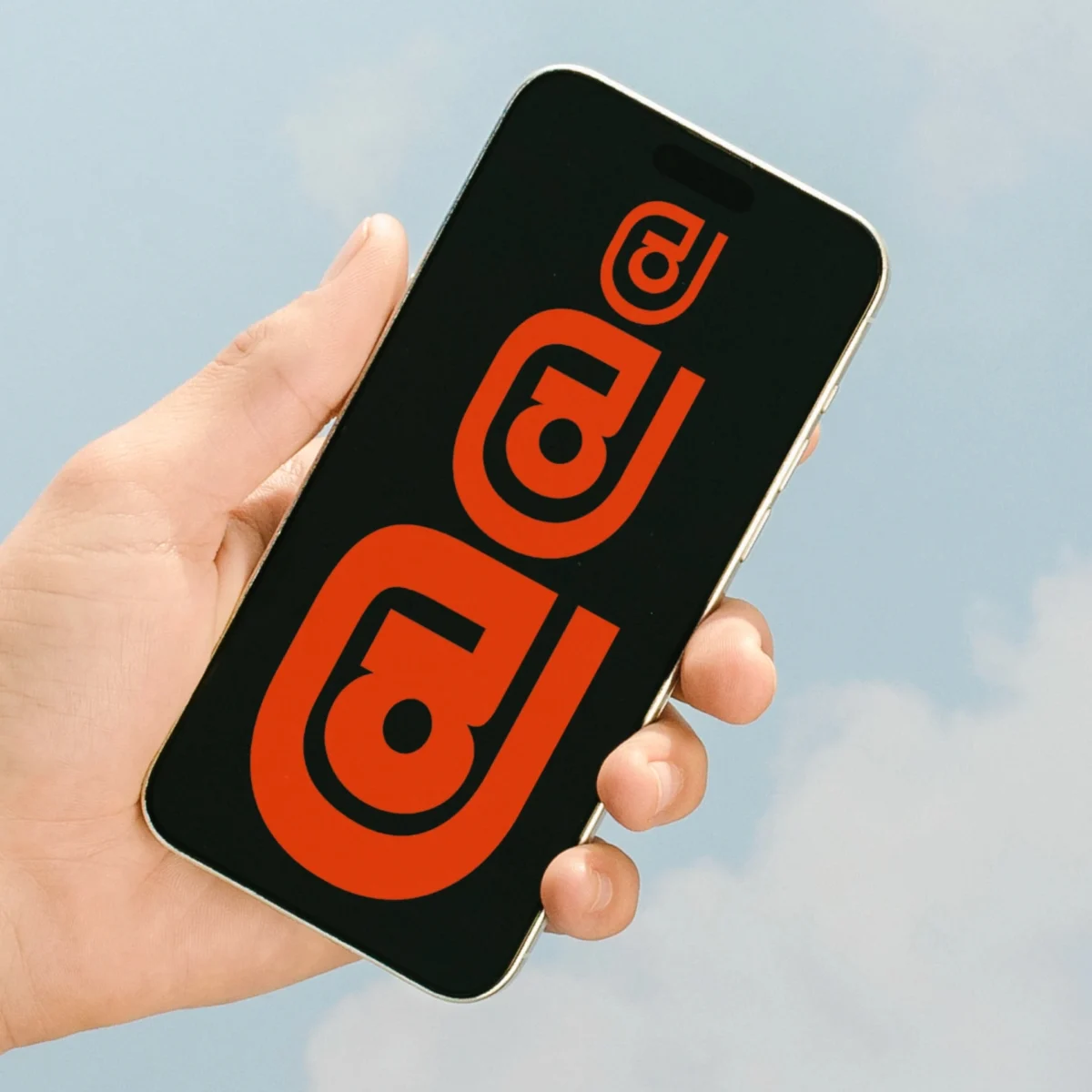
Arha Typeface by Bolditalic Studio: A Constructivist Revival Bridging Global Scripts with Architectural Precision
Bolditalic Studio has announced the release of Arha typeface 3.0, a significant update to its geometric sans serif that seamlessly merges the robust character of early 20th-century grotesque letterforms with the structural logic of constructivist architecture. The latest iteration, unveiled in January 2026, dramatically expands its linguistic support to include Greek, Georgian, Armenian, and an enriched Cyrillic alphabet featuring Abkhazian characters, positioning Arha as a uniquely versatile tool for global communication. This ambitious project, developed in collaboration with designers Kirill Turygin and Dmitry Goloub, transcends mere stylistic imitation, instead deconstructing and rebuilding type through an architectural lens to achieve a typeface that is both historically resonant and forward-looking.
The Genesis of Arha: A Dialogue Between History and Modernity
The initial premise for Arha was deceptively straightforward yet profound: to reinterpret the foundational elements of grotesque typefaces, which emerged in the 19th century as a stark departure from seriffed and humanist forms, through the rigorous, functionalist principles of constructivist architecture. Grotesques, characterized by their uniform stroke widths and lack of serifs, were revolutionary in their time, signaling a move towards industrial efficiency and direct communication. However, Arha does not merely revive; it re-engineers. Bolditalic Studio’s approach involved dissecting the archaic logic embedded within these historical forms, stripping away decorative elements to reveal the underlying structural integrity. This process aligns with the constructivist ethos, where form is dictated by function and materials are used honestly, often resulting in stark, geometric compositions.
Constructivism, an art and architectural philosophy that flourished in Russia after the 1917 revolution, championed abstract forms, industrial materials, and a commitment to social utility. Architects like Vladimir Tatlin, Aleksandr Rodchenko, and Konstantin Melnikov sought to create structures that were dynamic, rational, and reflective of a new, industrialized society. Their designs often featured bold geometric shapes, intersecting planes, and a deliberate use of negative space to define mass and volume. Arha typeface translates these architectural principles into typography, where each glyph is conceived as a self-contained structure, its apertures and stroke relationships meticulously calibrated for legibility and visual strength, even at a distance. This is particularly evident in how the typeface uses geometric mass and negative space to define its character, ensuring that its historical weight feels structural rather than superficial.
Arha Typeface: Geometric Sans with Constructivist Roots
A Chronology of Development and Expansion
The journey of Arha typeface from concept to its 3.0 release in January 2026 represents a methodical evolution guided by a clear design philosophy. While the exact initial development timeline is not publicly detailed, the core concept likely originated years prior, involving extensive research into both historical type specimens and constructivist architectural blueprints. The collaboration with Kirill Turygin and Dmitry Goloub points to a multi-faceted design process, leveraging specialized expertise in type design and possibly specific script knowledge.
The initial release of Arha focused on its Latin character set, establishing the unique fusion of grotesque and constructivist principles. This foundational stage was crucial for defining the typeface’s distinctive aesthetic and structural rules. Subsequent updates likely refined these Latin forms, optimized kerning, and expanded OpenType features. The 3.0 update, however, marks a pivotal moment, signifying a strategic pivot towards comprehensive multilingual support. The decision to integrate Greek, Georgian, Armenian, and an extended Cyrillic alphabet was not an afterthought but a calculated expansion, reflecting a growing demand for typefaces capable of maintaining visual consistency across diverse global writing systems. This development cycle underscores Bolditalic Studio’s commitment to creating a truly universal design language.
Architectural Precision in Glyph Design
The distinctive character of Arha typeface lies in its deliberate application of constructivist architectural principles to each letterform. The design team at Bolditalic Studio meticulously studied how constructivist buildings achieved legibility and impact through geometric mass, structural integrity, and the intelligent use of negative space. This analytical approach informs every curve, angle, and counter-form within Arha. Strokes are not merely decorative but structural, creating glyphs where relationships between lines and apertures feel inherently purposeful.
Arha Typeface: Geometric Sans with Constructivist Roots
A prime example of this precision is evident in the treatment of notoriously challenging letters like ‘K’ and ‘Zh’. These characters often present difficulties in achieving visual harmony across different scripts, particularly between Latin and Cyrillic. In the 3.0 release, Arha introduces new stylistic sets specifically for these glyphs, offering typographers enhanced control over their appearance within a composition. This granular level of detail allows designers to fine-tune the visual rhythm and balance of text, ensuring that the constructivist rigor is maintained without sacrificing aesthetic appeal or legibility.
Furthermore, Arha typeface boasts a comprehensive weight range, spanning from a delicate light that maintains structural integrity even at minimal sizes, to a commanding bold that retains its geometric precision under pressure. This versatility makes Arha an invaluable asset across a spectrum of applications. In editorial design, it can seamlessly handle both impactful headlines and legible body text, creating a cohesive visual narrative. For branding, its robust and distinctive presence allows a single typeface to carry an entire visual system across diverse touchpoints, from logos to digital interfaces. The inherently geometric construction also renders Arha exceptionally effective in digital environments, where its clean horizontal and vertical strokes reproduce with crisp clarity across varying screen densities and resolutions, a critical advantage in today’s screen-first design landscape.
Extended Scripts: Embracing Multilingual Diversity with Cultural Sensitivity
The most groundbreaking aspect of Arha 3.0 is its profound expansion into non-Latin scripts, a move that speaks volumes about Bolditalic Studio’s commitment to genuine multilingualism. The inclusion of Greek, Georgian, and Armenian scripts is particularly noteworthy, given the unique challenges each presents to a geometric design philosophy.
Greek Script Integration: The Greek alphabet, with its ancient lineage and distinct forms, requires careful consideration. Unlike a simple transliteration, Arha’s Greek glyphs are crafted to embody the constructivist spirit while respecting traditional Greek letter structures and diacritics. The design team focused on maintaining the same robust geometric framework seen in the Latin set, ensuring visual consistency without imposing alien proportions. This approach ensures that Greek text set in Arha feels authentic and harmonized with the rest of the typeface.